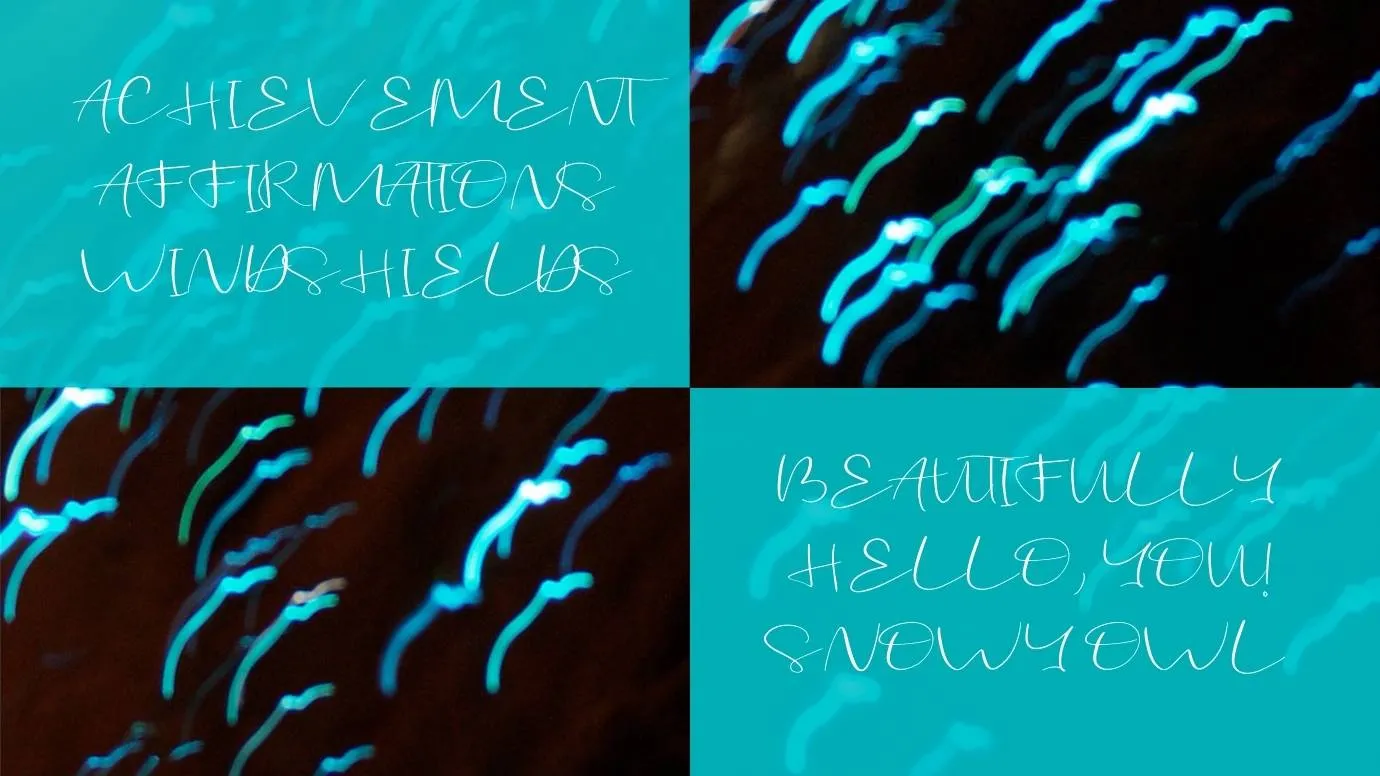
Cinnamon Font is a fantastic and romantic font. This font belongs to the script family. It is a funny and artistic font. This font is used in logos, invitation cards, and posters. It is available in a regular style. It looks like a handwritten font that has a consistent flow and attractive wave.
This font has a complete set of characters including upper and lower case letters, digits, symbols, and special characters. It also has a complete set of unique glyphs. This font is similar to the Shorelines Font. This font has soft and connected letters.
This font can be used in logos, fashion designing, product packaging, shop names, invitation cards, book titles/covers, and many different projects.
Designer of Cinnamon Font
This artistic and stylish font is designed by an American font designer Kaitlynn Albani for the KA Design foundry in 2019.
This font style is designed with a unique and consistent style. This attractive style is a mixture of various features, including capital alphabets, a small alphabet, punctuations, glyphs, digits, special characters, symbols, and a large number of language support.
View of Cinnamon Font
| Name | Cinnamon Font |
| Style | Calligraphy |
| Designer | Kaitlynn Albani |
| Foundry | KA Designs |
Is Cinnamon Font a Sans Serif font?
No, this is not a Sans Serif font. This is a calligraphy font and belongs to the Script family.